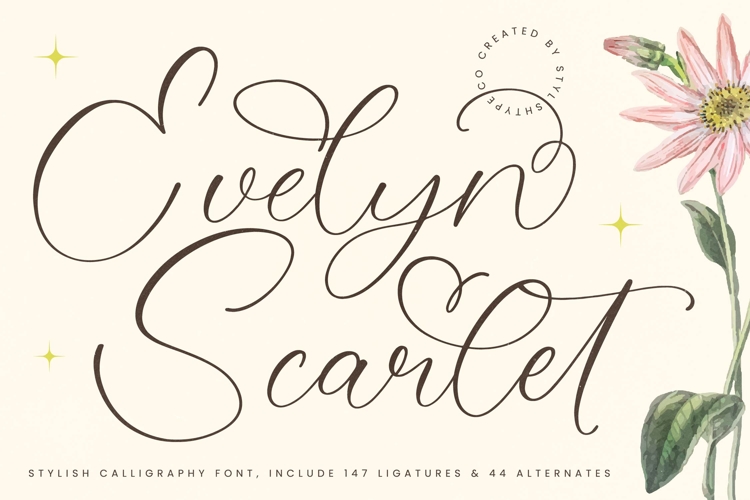
Evelyn Scarlet - Stylish Calligraphy Font
Evelyn Scarlet - Stylish Calligraphy Font is a breathtaking script typeface defined by its high-contrast strokes and fluid, expressive curves. This typeface masterfully blends the charm of traditional handwritten calligraphy with modern elegance, creating a genuinely unique aesthetic. It embodies romance and luxury, ensuring your titles and logotypes possess an unmistakable air of exclusivity.